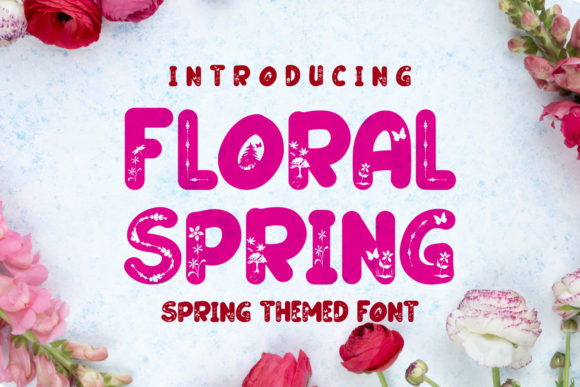
Behold the Floral Spring Font, a typographic masterpiece that exudes joy and exuberance. Its bold, thick letters dance across the page like a jubilant parade, carrying your message with unwavering confidence. Unleash your creativity and let your designs blossom with this font's captivating charm.
Floral Spring is more than just a font; it's an invitation to embark on a whimsical journey. Picture the laughter of children as they read stories adorned with this font's playful characters. Imagine the vibrant energy of a carnival, with banners and posters emblazoned with Floral Spring's attention-grabbing letters. This font has the power to transform ordinary words into extraordinary expressions, leaving a lasting impression on your audience.
Step into a world where imagination knows no bounds. Create eye-catching logos that bloom with personality. Design cheerful invitations that promise an unforgettable event. Craft social media posts that pop with color and energy. With Floral Spring as your creative companion, the possibilities are endless.
Floral Spring's versatility knows no limits. Whether you're creating designs for a children's book, a playful website, or a whimsical branding campaign, this font will effortlessly elevate your work to new heights. Its bold strokes and cheerful demeanor make it the perfect choice for any project that demands a touch of whimsy and delight.